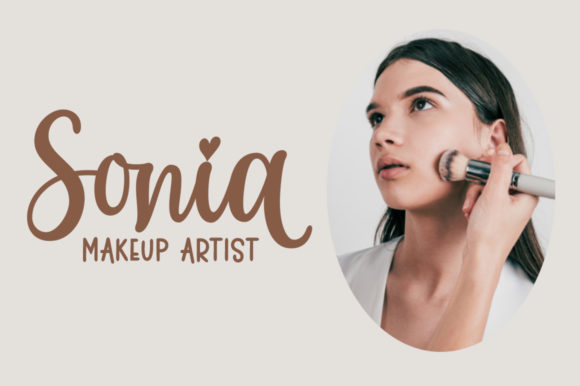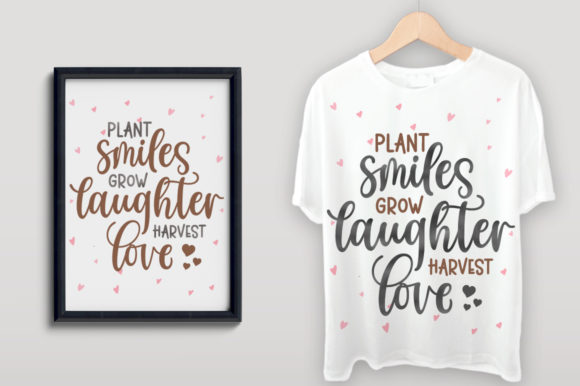
Lovely Mothers Font
db-ku.com - Script & Handwritten -- Lovely Mothers is a beautiful light duo font (sans serif and handwritten), with a unique feel and a stunning impact. It will add a luxury spark to any design project that you wish to create! This font is PUA encoded which means you can access all of the amazing glyphs and ligatures with ease!